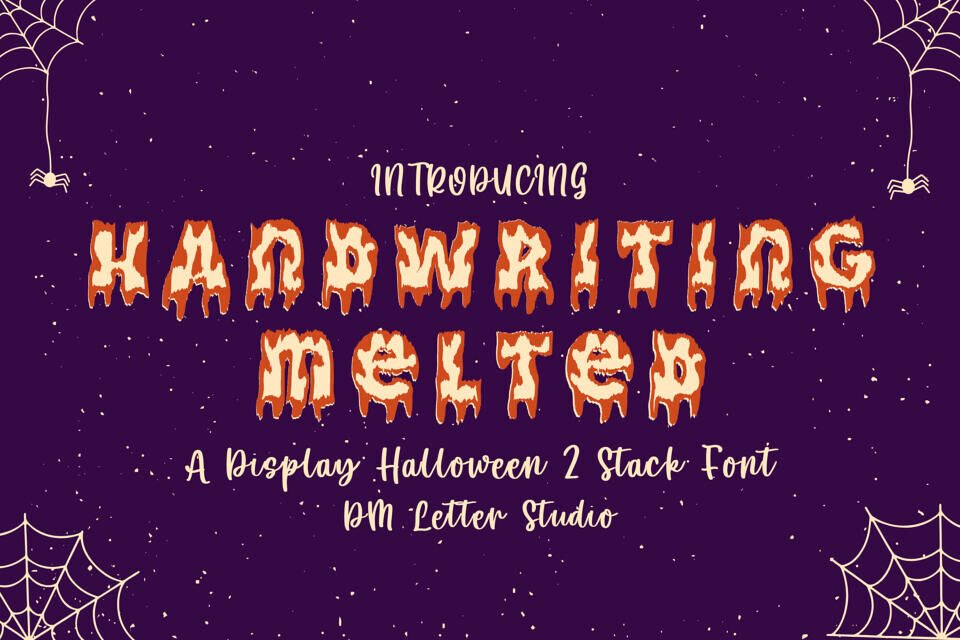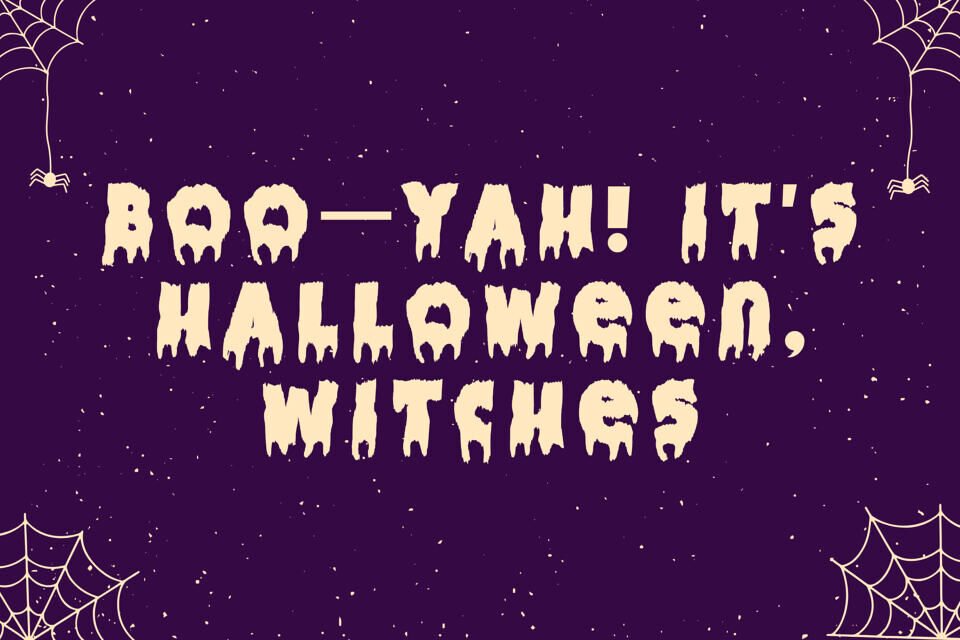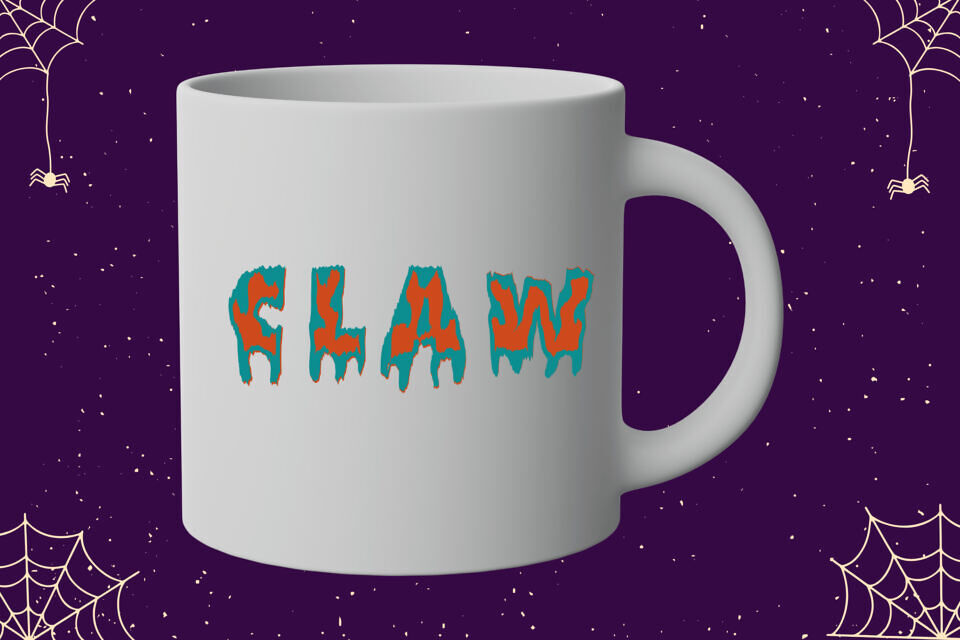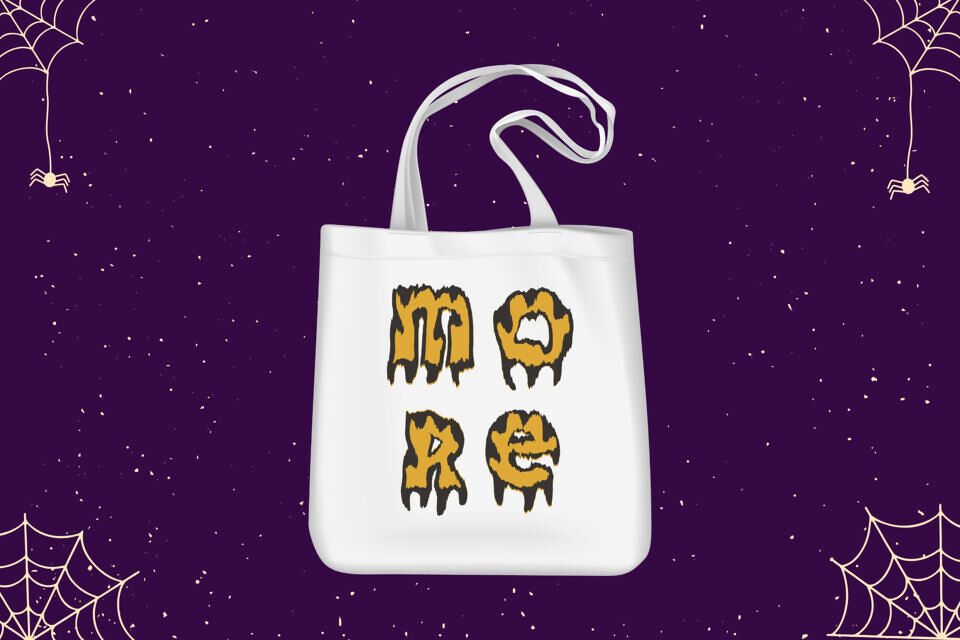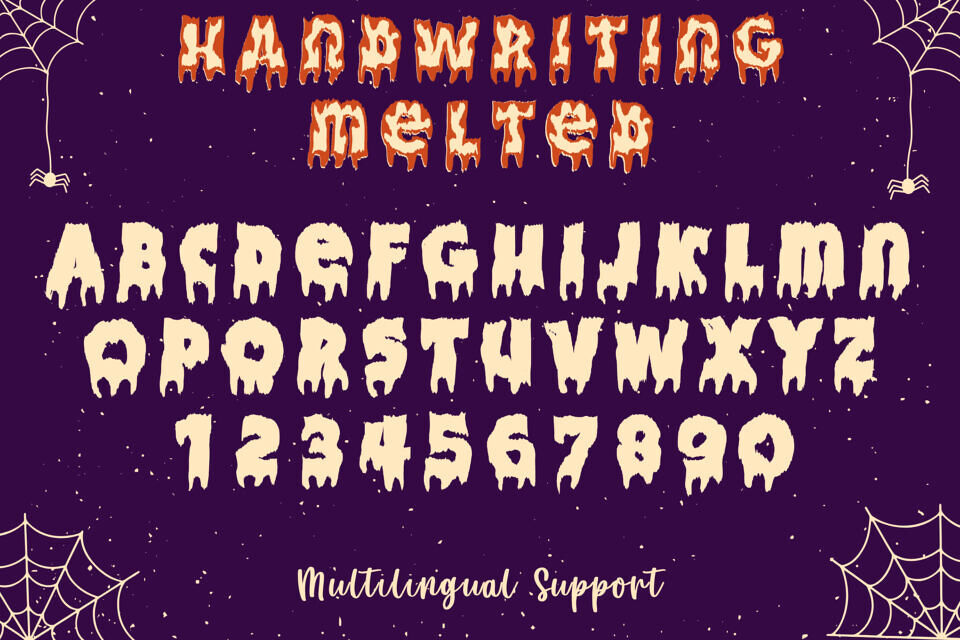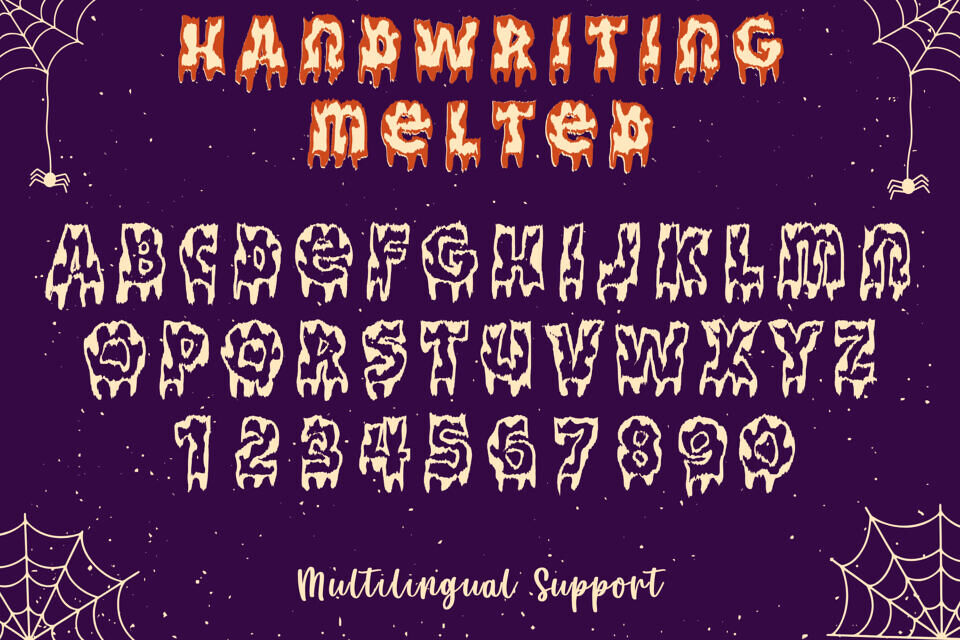
Handwriting Melted, a Drippy & Spooky Handwritten Font!
Handwriting Melted is a playful yet eerie script font that looks like it’s oozing right off the page! With its melted ink effect and handwritten vibe, this font is perfect for Halloween-themed designs, haunted house flyers, spooky invitations, creepy crafts, and more. Its fun, drippy letters bring a ghoulish charm to both print and digital projects.